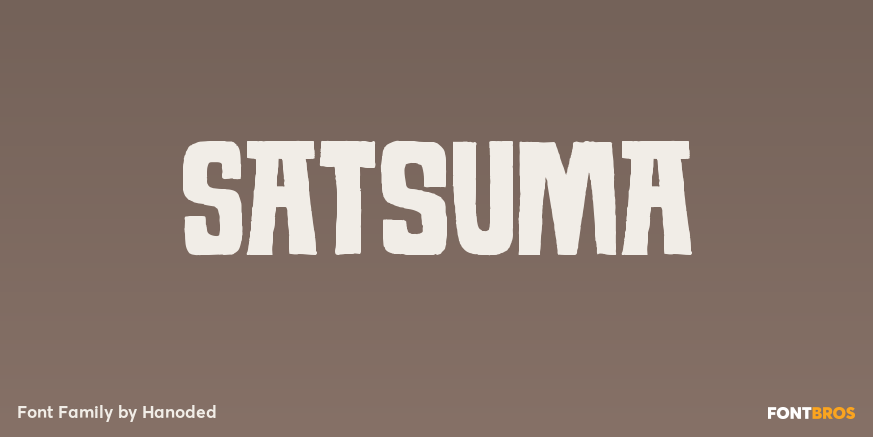
Satsuma
About Satsuma
Satsuma. It used to be only a Japanese orange, but now it\’s a typeface as well. A rather unusual typeface. Satsuma is rough around the edges, squarish and playful. It is handmade and comes with over 400 interlocking ligatures. If that ain\’t fun, I don\’t…